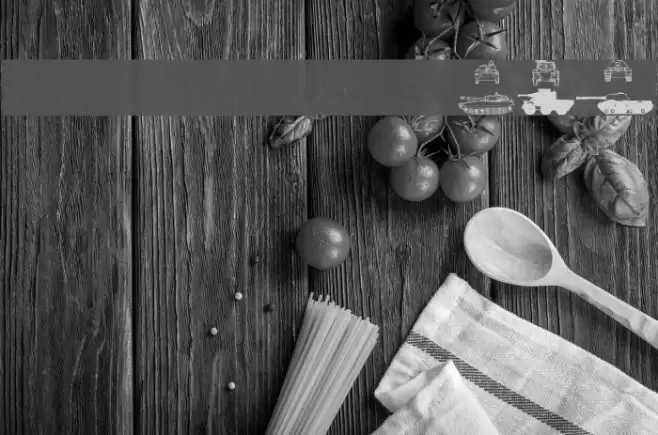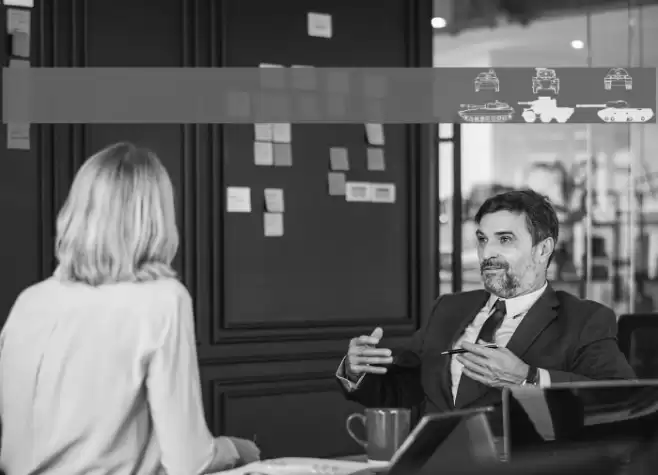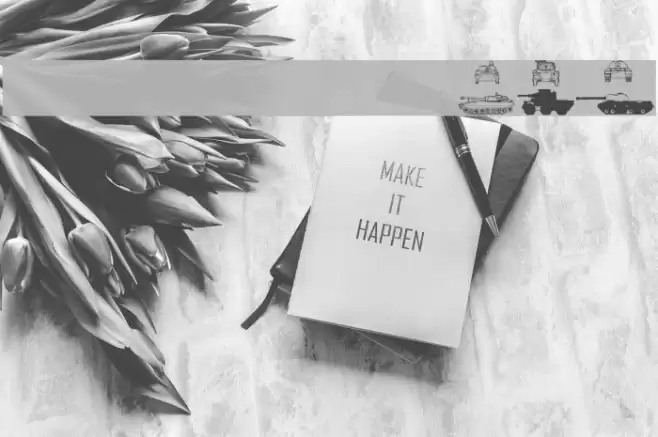
AFV2 Font
AFV2 Description
A decorative dingbat font featuring detailed black-and-white silhouettes of various armored fighting vehicles, including tanks and military trucks, each glyph representing a different vehicle.
A military-themed dingbat font with armored vehicle silhouettes from Dingbats fonts.
- Overall Style: Decorative, Thematic
- Use Case: Icons, Themed graphics, Decorative elements